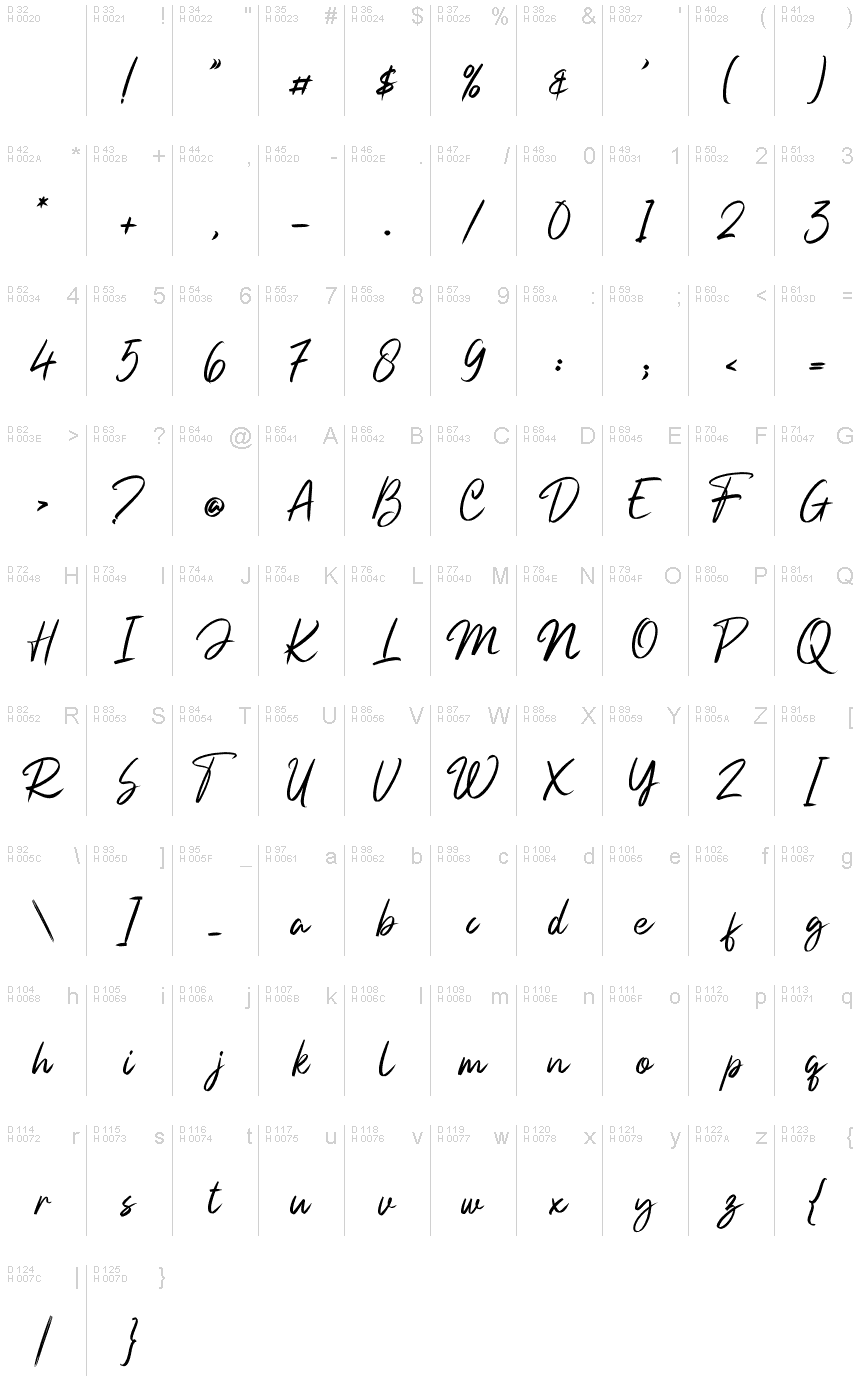
Beautifully DEMO
Beautifully! A handbrush script font style. Beautifully font is suitable for branding, logotype, apparel, T-shirt, Hoodie, product packaging, quotes, flyer, poster, advertising, etc.
1. Uppercase and lowercase characters
2. Multilingual support.
3. Numerals, punctuations, end titling, and ligarures